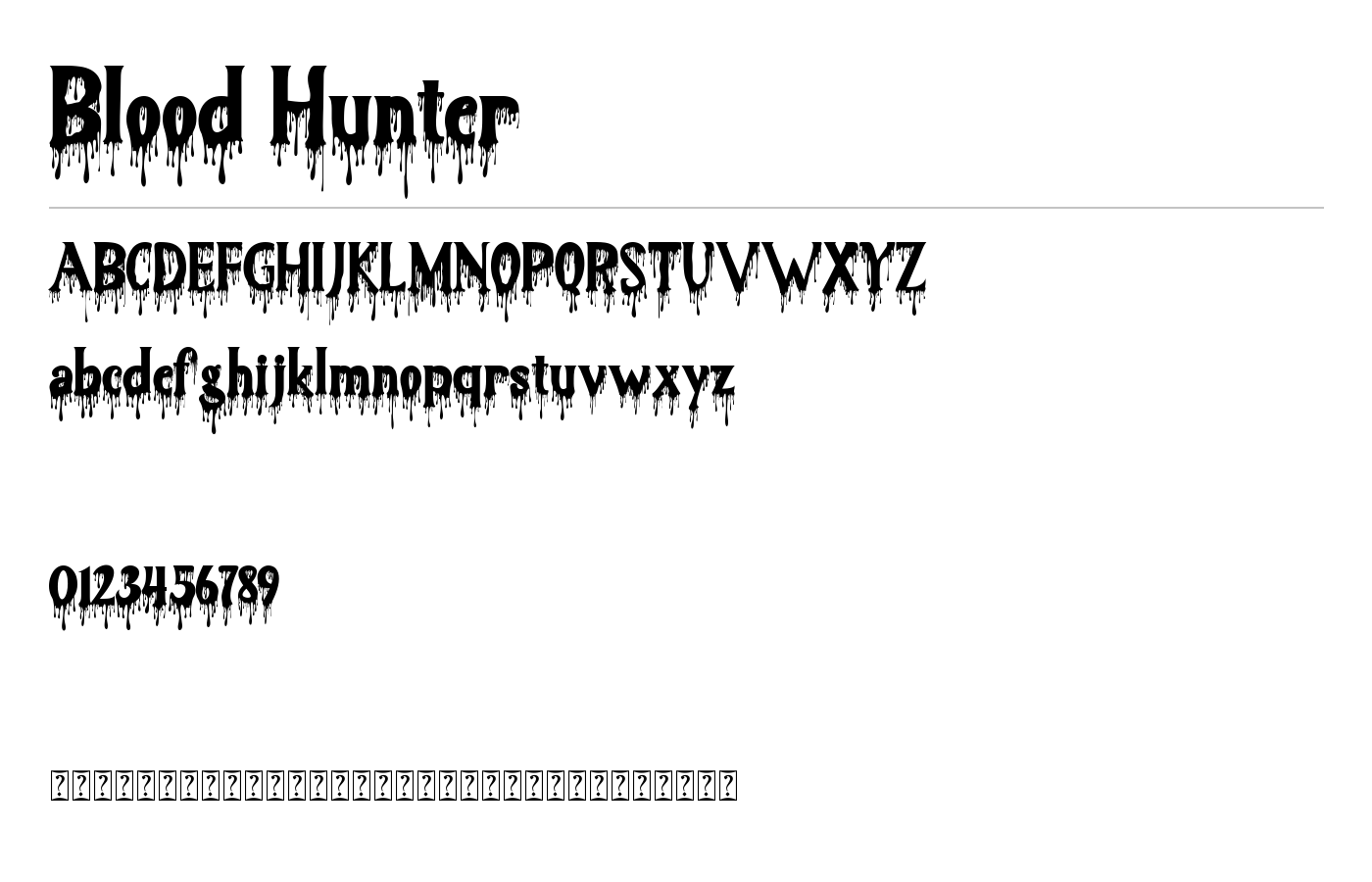
Blood Hunter is a bold, decorative serif font with a horror-inspired design that features dripping elements resembling blood. Its thick strokes and high contrast with sharp, irregular edges create a spooky and dramatic atmosphere, making it perfect for Halloween-themed projects, horror movie posters, or any design aiming for a dark, eerie vibe. This font works best in headlines and display uses where its eye-catching, playful yet sinister personality can stand out.
Blood Hunter Font
About Blood Hunter Font
| Font family | Blood Hunter Font |
| Designer | Yoga Letter 2024 (Isroni Yoga Prasetya) |